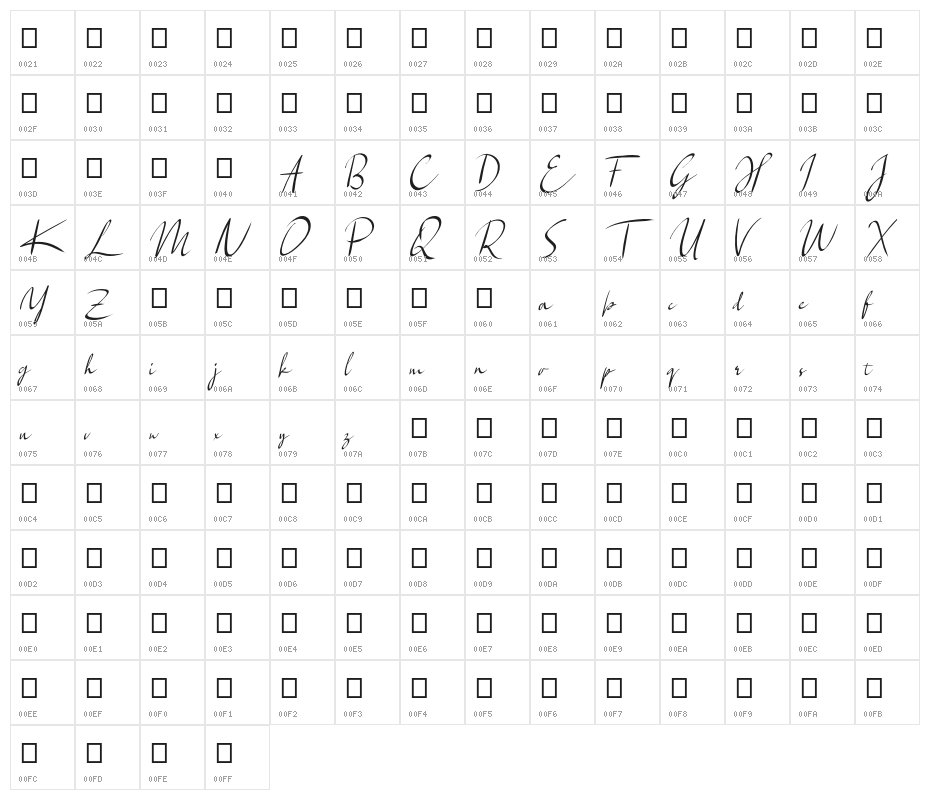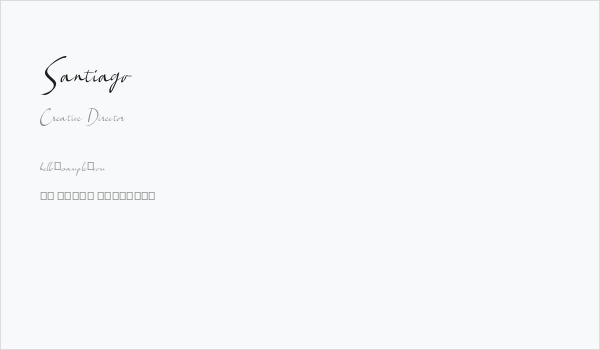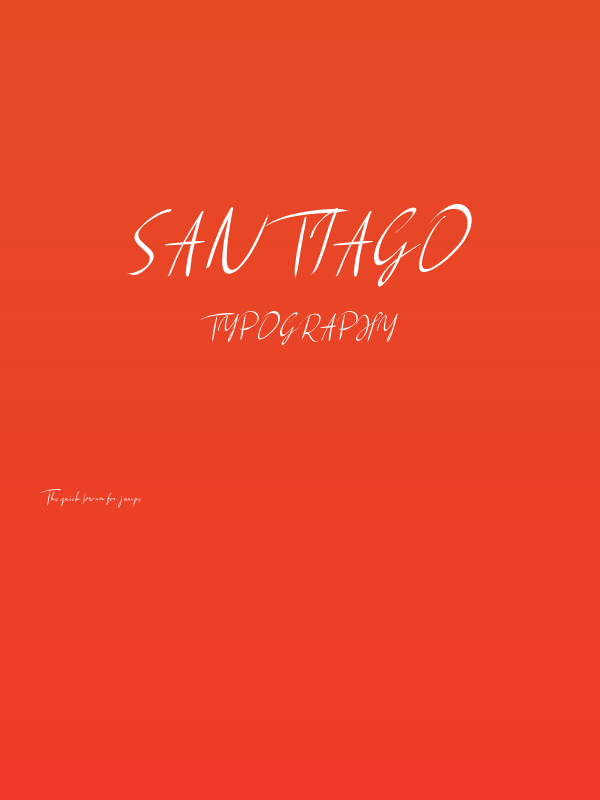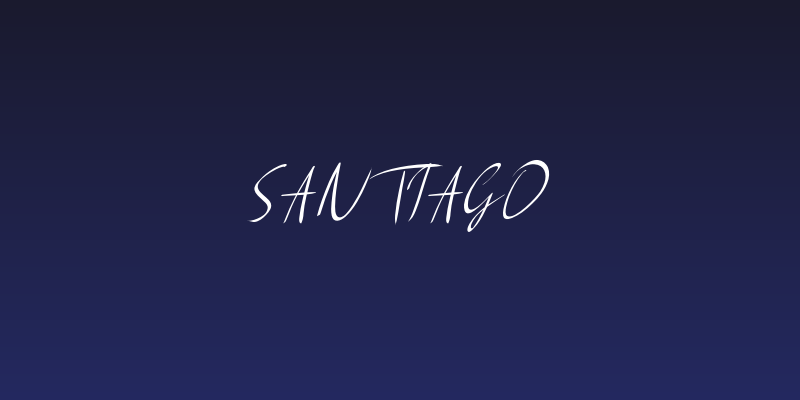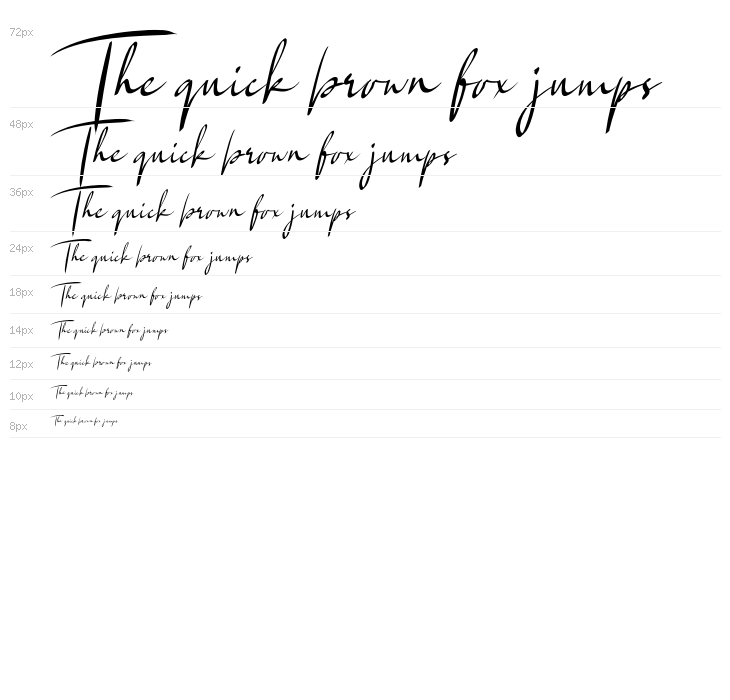
Santiago Font
Santiago Description
This font features an elegant, flowing script style that mimics the fluidity of natural handwriting. The uppercase letters are characterized by their sweeping curves and elongated strokes, giving them a sophisticated and graceful appearance. The lowercase letters maintain a consistent fluidity, with smooth connections between characters that enhance readability while preserving the artistic flair. The overall design is both stylish and legible, making it suitable for a variety of creative applications. The absence of special characters in the image suggests a focus on the alphabet, emphasizing the font's primary use in text-based designs.
| Overall Style | Elegant, Artistic |
| Proposed Projects | Ideal for wedding invitations, greeting cards, branding projects, and elegant logo designs. |